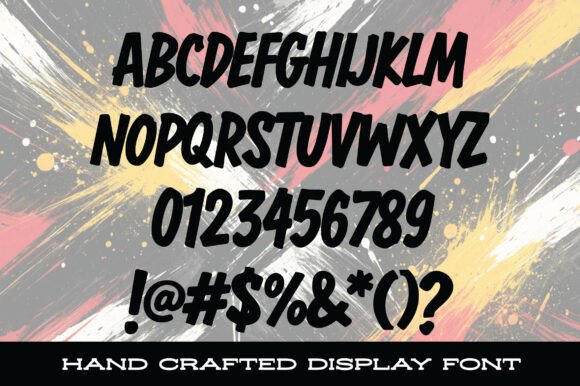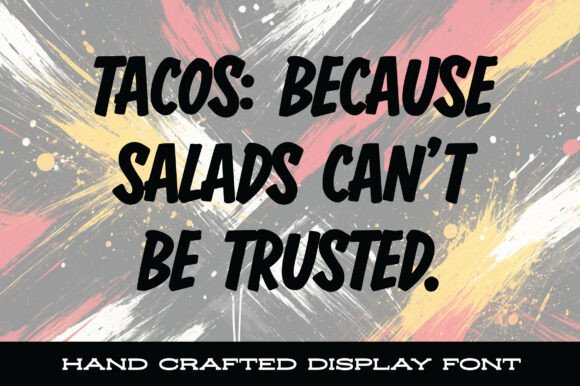
Unleash Your Creativity with Brushriot Font: The Ultimate Display Font for Bold Designs
Are you tired of using the same old fonts that lack personality and flair? Look no further than Brushriot, a fearless hand-brushed display font that’s built on raw motion and unapologetic energy. This font is not for the faint of heart – it’s for designers and crafters who want to make a statement and leave a lasting impression.
The Power of Brushriot
Every stroke of Brushriot feels fast, textured, and alive – like it was painted in one bold, decisive sweep. With natural edge variation, subtle imperfections, and a rebellious rhythm, Brushriot brings authentic brush character to logos, apparel, posters, packaging, and branding that refuses to play it safe. This font is not polished, it’s powerful. It doesn’t whisper, it shouts.
What Makes Brushriot Unique
So, what sets Brushriot apart from other fonts? Here are just a few of its unique features:
• Raw Motion: Brushriot is built on raw motion, giving it a dynamic and energetic feel that’s perfect for designs that need to move and groove.
• Unapologetic Energy: This font has an unapologetic energy that’s infectious and attention-grabbing. It’s not afraid to take risks and push boundaries.
• Natural Edge Variation: Brushriot’s natural edge variation gives it a organic, hand-crafted feel that’s perfect for designs that need to feel authentic and real.
• Subtle Imperfections: The subtle imperfections in Brushriot add to its charm and character, making it feel more human and less machine-made.
Who is Brushriot for?
Brushriot is perfect for designers and crafters who want to create bold, eye-catching designs that refuse to play it safe. This font is ideal for:
• Logos and Branding: Brushriot is perfect for logos and branding that need to make a statement and leave a lasting impression.
• Apparel and Fashion: This font is great for apparel and fashion designs that need to be bold, edgy, and attention-grabbing.
• Posters and Packaging: Brushriot is ideal for posters and packaging that need to stand out on store shelves and grab attention.
• Experiment with Different Sizes: Brushriot looks great in large sizes, but it can also be used in smaller sizes to add a touch of personality to your designs.
• Play with Color: This font looks great in bold, bright colors that match its energetic and playful personality.
• Mix and Match: Don’t be afraid to mix and match Brushriot with other fonts to create unique and interesting combinations.
Brushriot is a powerful and energetic display font that’s perfect for designers and crafters who want to create bold, eye-catching designs. With its raw motion, unapologetic energy, and natural edge variation, Brushriot brings authentic brush character to any design. Whether you’re creating logos, apparel, posters, or packaging, Brushriot is the perfect font for designs that refuse to play it safe.